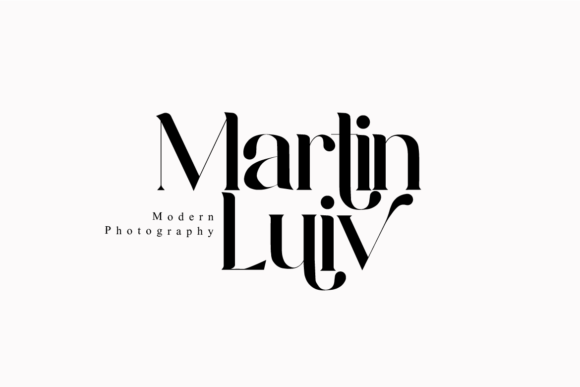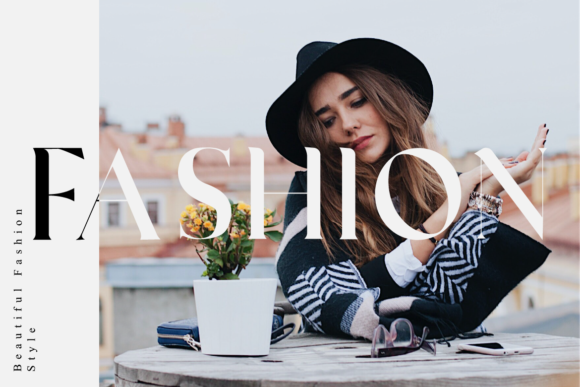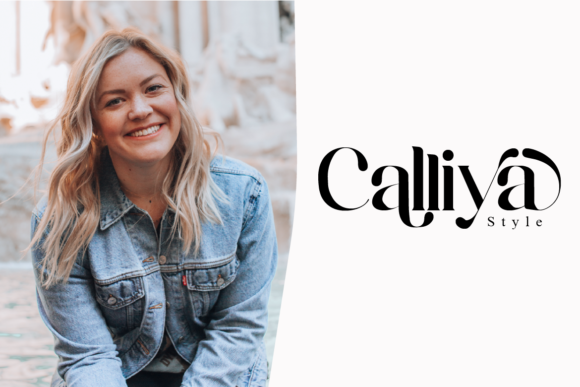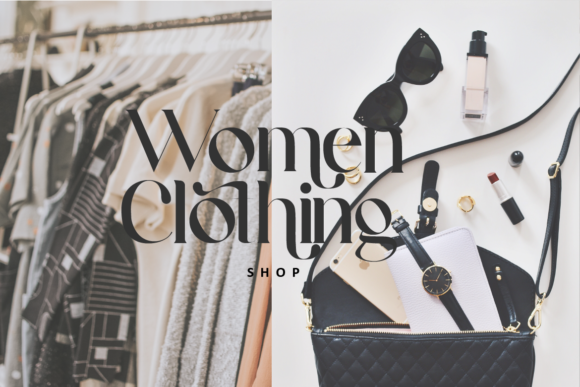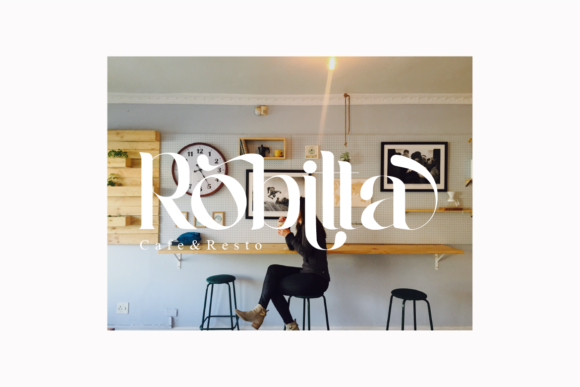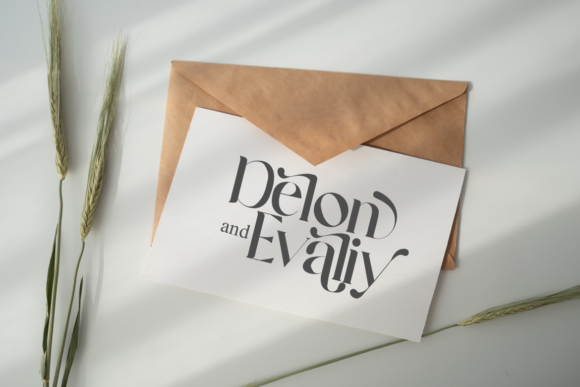
Introduction to Maldive Font
You know that moment when you’re working on a design project, and you need the perfect font to bring it all together? It’s like searching for the missing piece of a puzzle. You’ve got your colors, your layout, and your message, but without the right typography, it just doesn’t feel complete. That’s where the Maldive Font comes in – a stunning, modern serif font that will elevate your designs and take them to the next level.
Whether you’re a seasoned designer or just starting out, the Maldive Font is a valuable resource for any creative project. Its high quality and versatility make it perfect for logos, stationery, magazine covers, and even social media posts. And the best part? It’s available for a free download, so you can get started right away. With a transparent background, you can easily layer it over any image or design element, giving you endless possibilities for creativity.
Key Features of Maldive Font
- Unique, stylish design suitable for modern and elegant creative projects
Honest Review: Maldive Font
I recently stumbled upon the Maldive Font and was eager to give it a try. As a designer, I’m always on the lookout for high-quality fonts that can elevate my creative projects. Here’s my honest take on this design resource.
- ✨ High-quality design: The Maldive Font boasts a stunning, modern aesthetic that’s perfect for any creative project.
- ⚠️ Limited character set: The font only includes a limited set of characters, which may not be suitable for complex designs or projects that require a wide range of typography.
- ⚠️ Not suitable for large-scale text: While the font looks great for smaller text sizes, it may not be the best choice for large-scale text or headings.
Overall, the Maldive Font is a great addition to any designer’s toolkit, especially for small to medium-sized projects. While it may have some limitations, its high-quality design and transparent background make it a versatile and convenient design resource.
Maldive Font
The Maldive Font is a unique design resource ideal for creative projects that require a touch of elegance and sophistication. This free download offers a high-quality font that can be used to add a personal touch to your designs.
Tips for Getting the Most Out of Maldive Font
To get the most out of the Maldive Font, try using it in combination with other design elements, such as icons and graphics, to create a cohesive and visually appealing design. You can also experiment with different font sizes, colors, and styles to add a personal touch to your designs.
The Maldive Font is ideal for a variety of creative projects, including social media graphics, website headers, presentations, and documents. Its elegant and sophisticated design makes it perfect for industries such as fashion, beauty, and luxury goods.